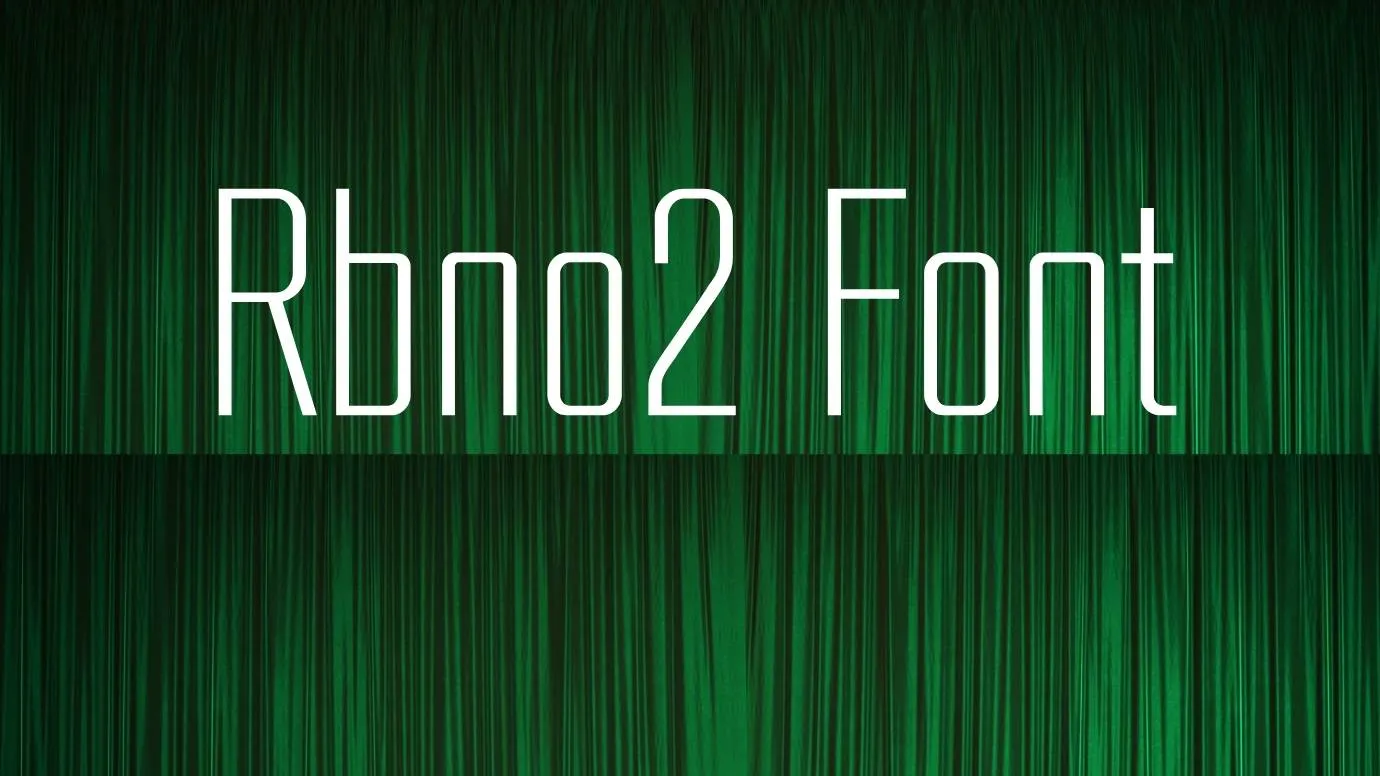
RBNo2 is a sans-serif typeface that was initially designed by Rene bieder.  Many industrial fonts like this typeface due to its great look and unique style. This typeface has two regular styles including Light and bold.
Due to its light letters, it is suitable for geometric sans-serif designs. This typeface is perfect for combination with Letric Font and Titillium Font.
RBNo2 Font